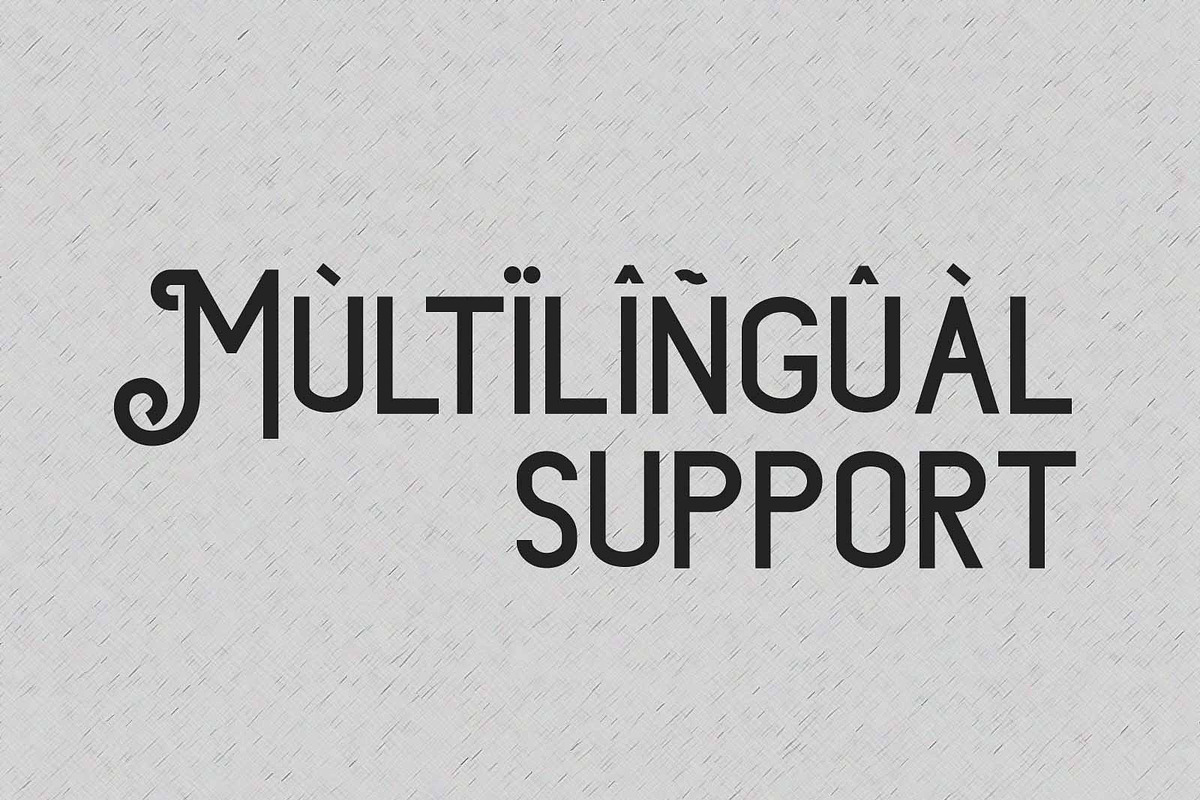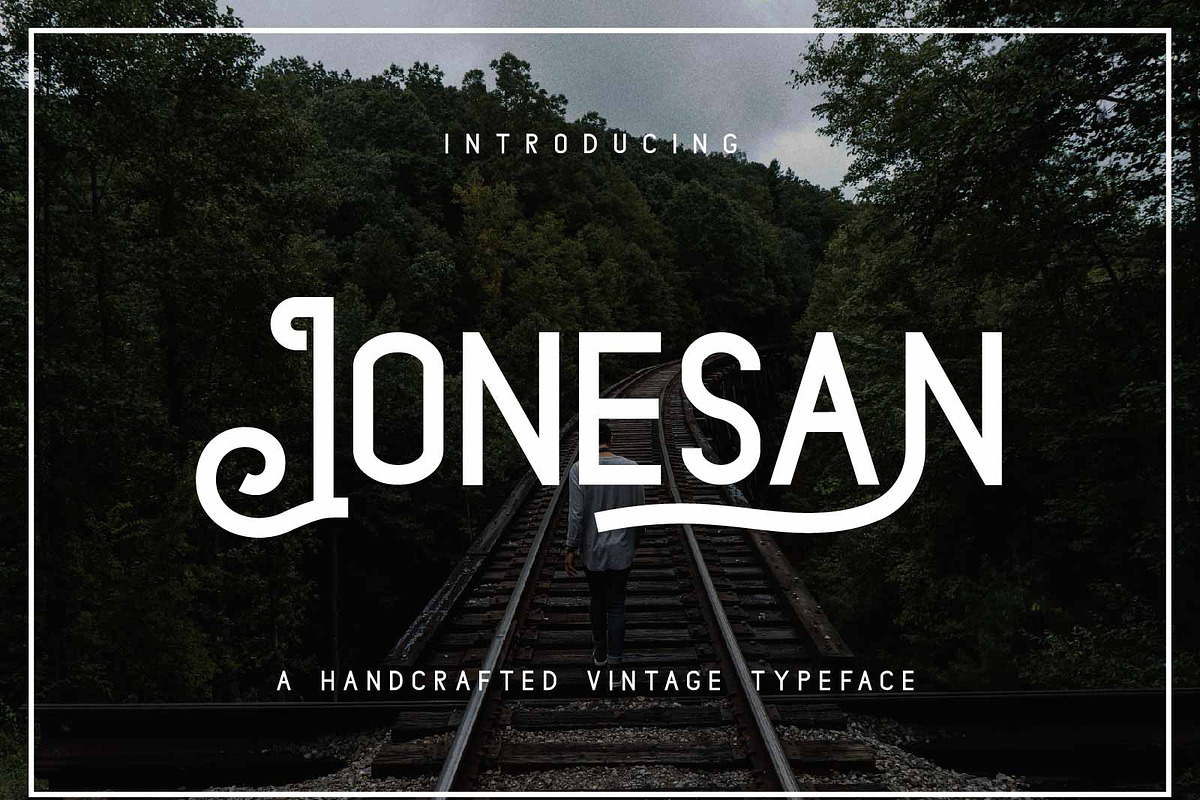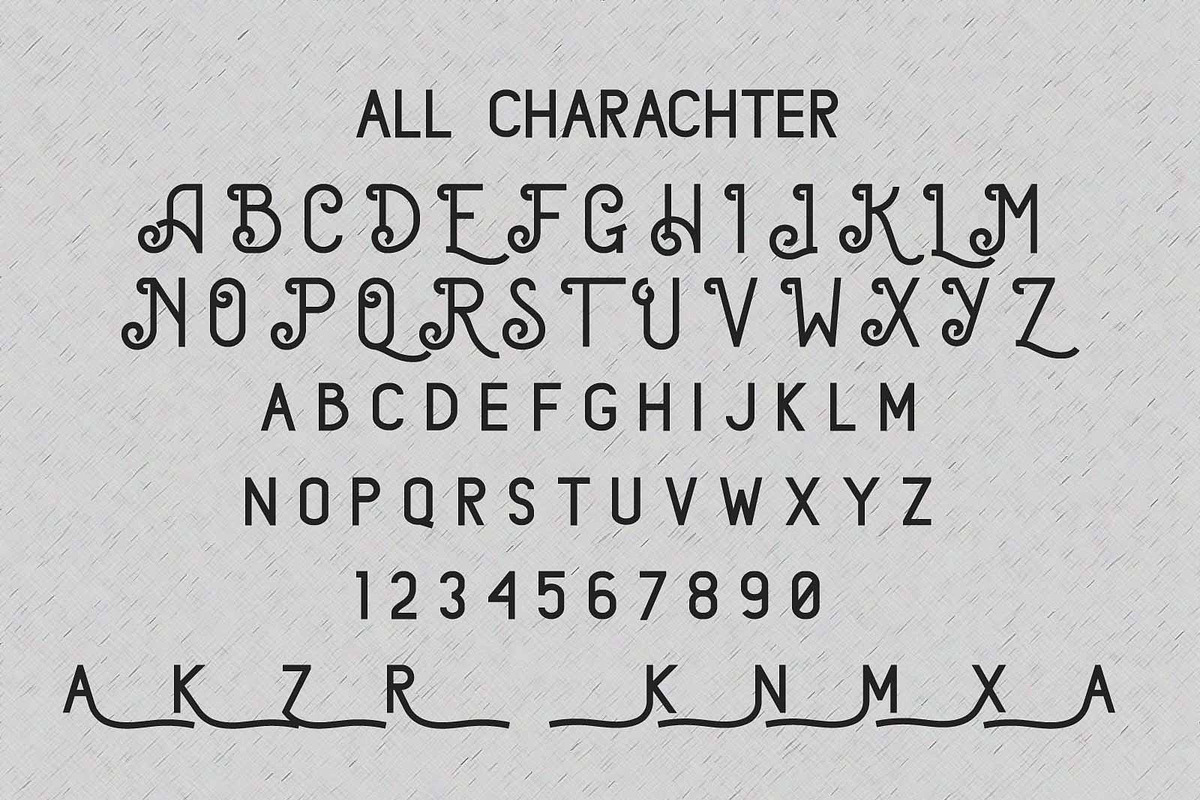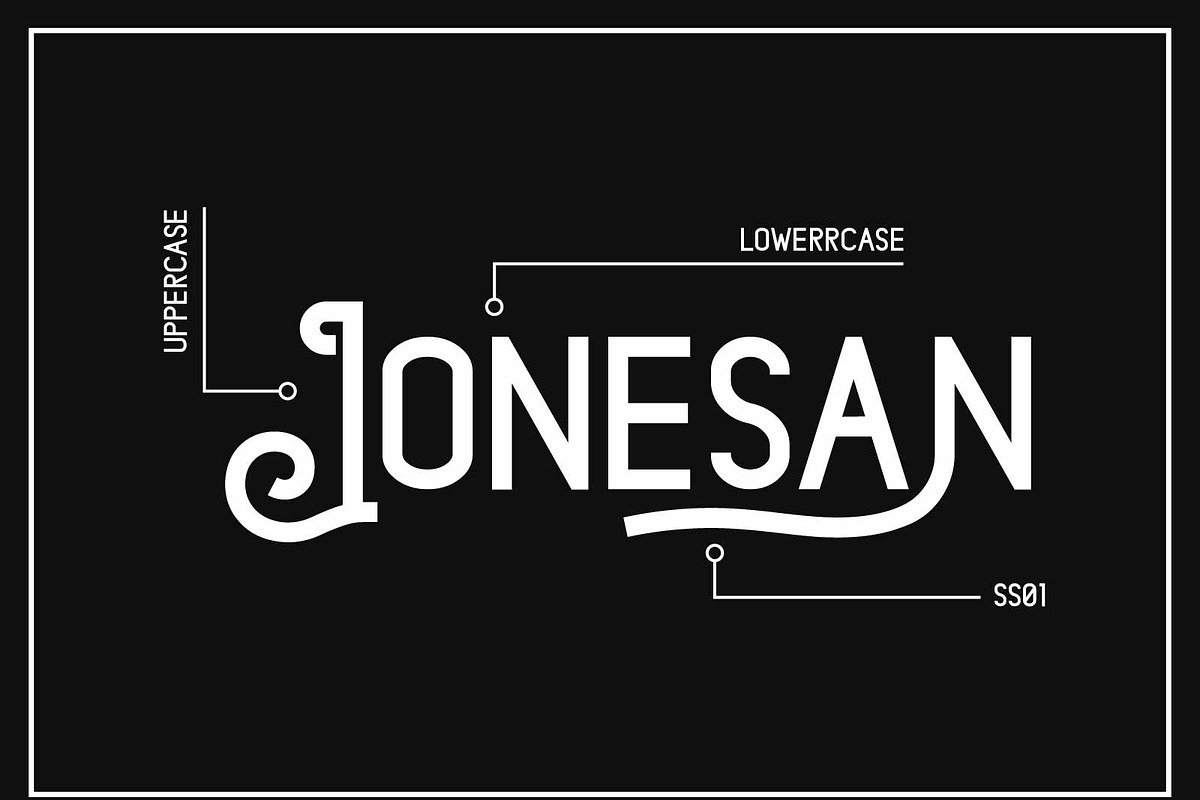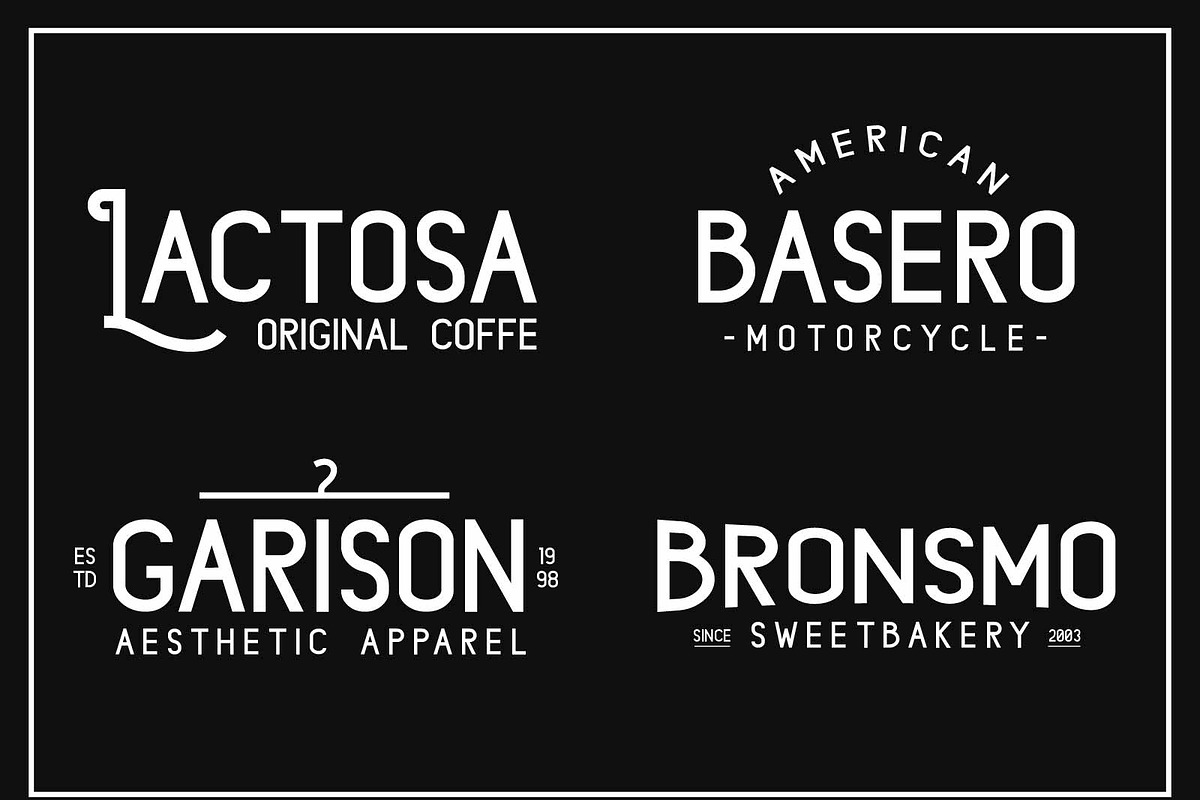
Jonesan | Display Vintage Font
Jonesan is a vintage styled, distinct and adaptable display font. Suitable to a wide variety of designs due to its neat and simple style, this font has the potential to become your favorite go-to font, no matter the occasion!